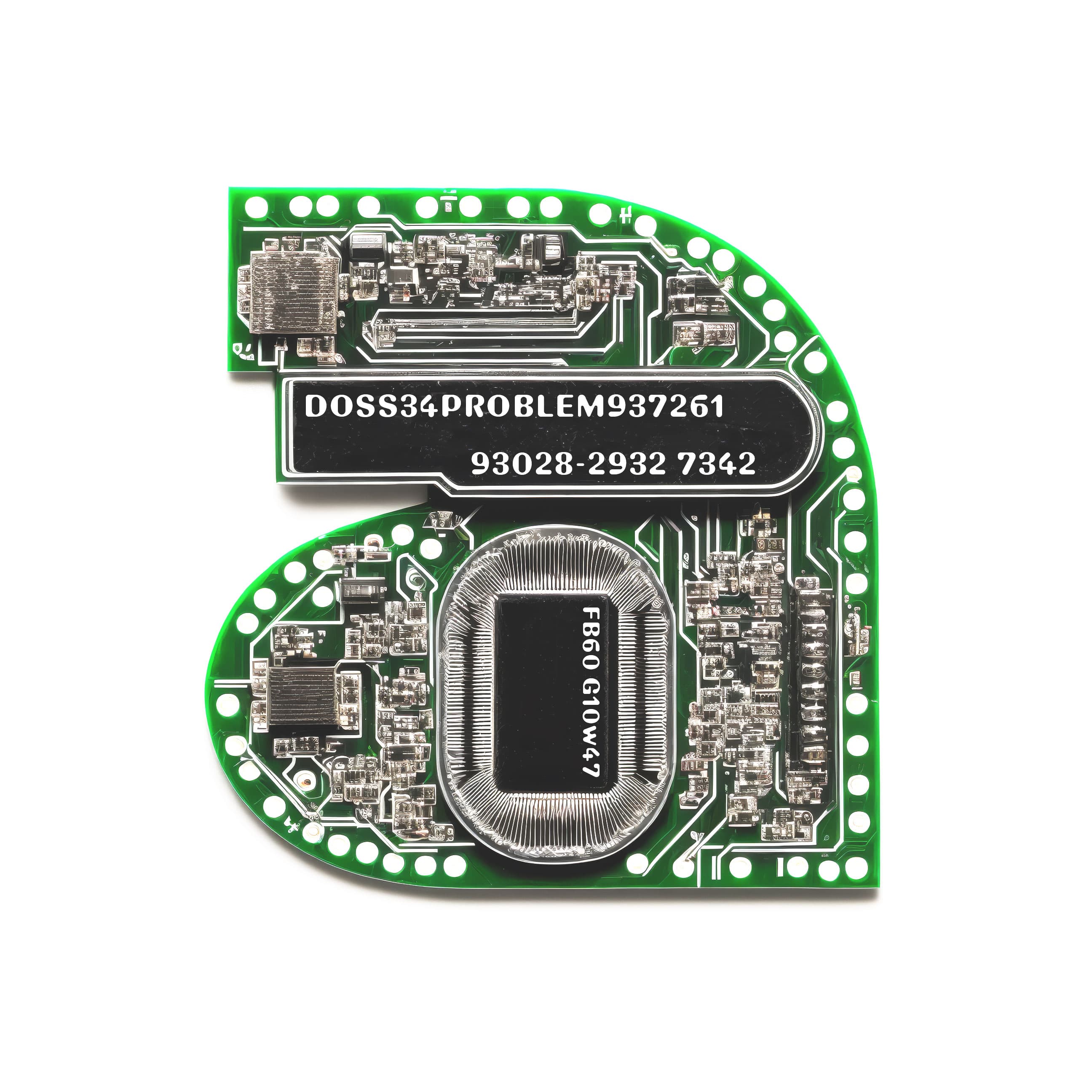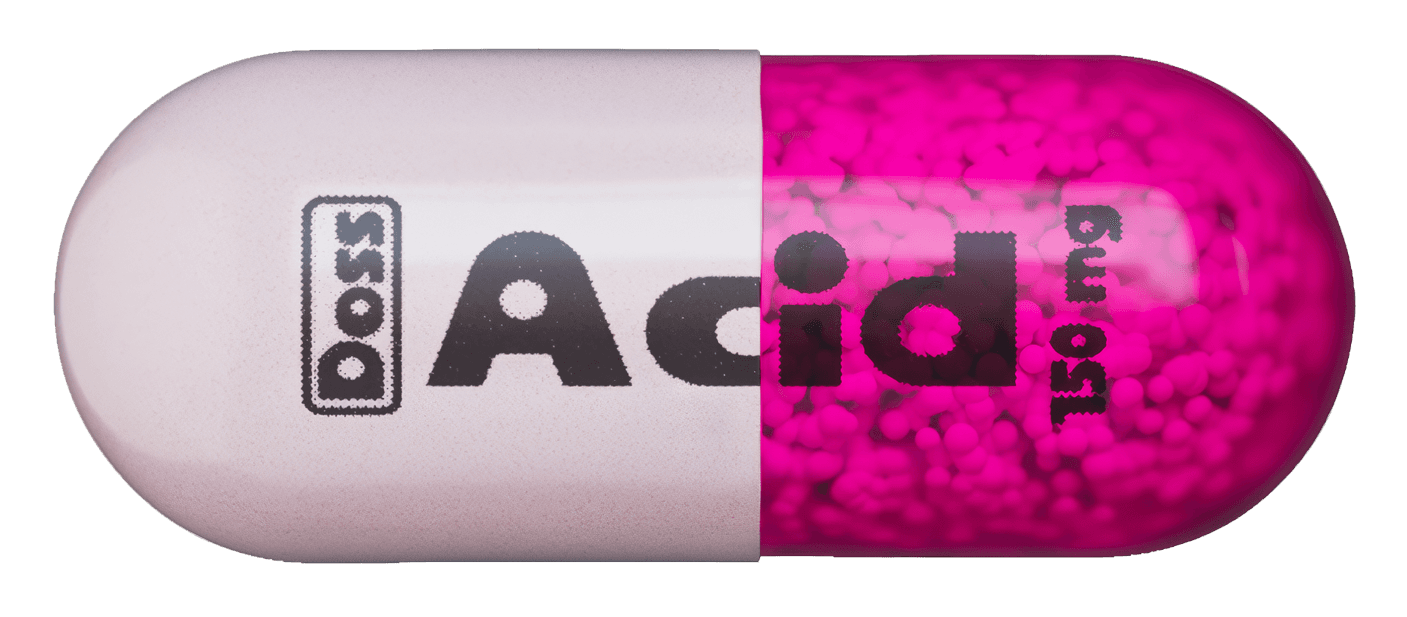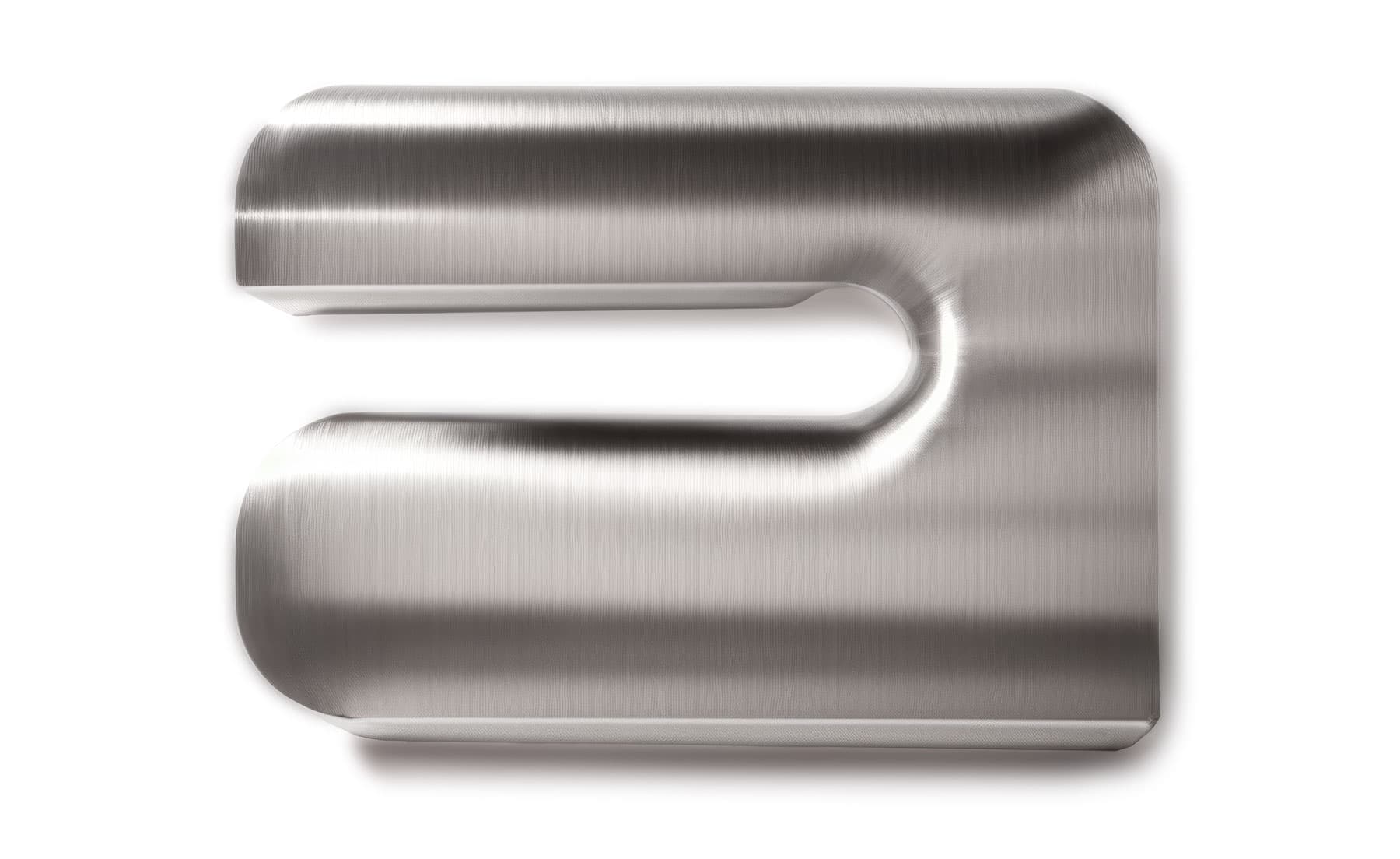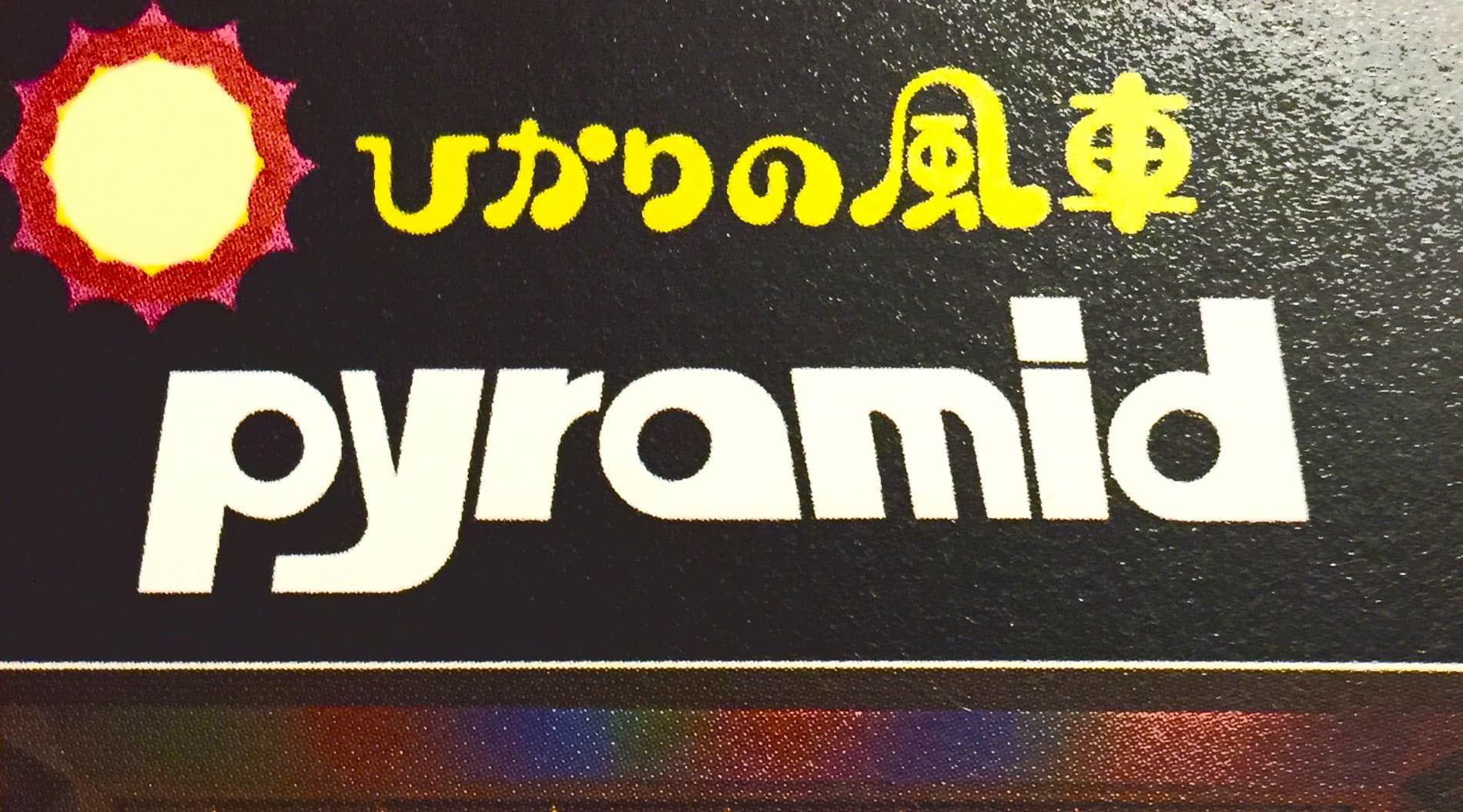
DOSS Collection
Inspired by the logotypes of construction and hi-fi audio brands, DOSS is a collection of four display-oriented typefaces that also reference the aesthetics of ‘90s rave culture and ‘80s sci-fi tropes. The quartet was designed by Marc Rouault over a period of five years, forming a loose confederacy of fonts that reveals his fascination with vernacular typography—in this case, the aesthetics of electronics and their branding.
Available all together or as individual styles, the DOSS collection includes Exaflop, Acid, Plexus, and Problem. While each has its own unique flavor, the styles within the Doss collection are unified by their exaggerated geometric structures, unexpectedly round counterforms, and unicase character sets. A graphic designer’s type designer, Marc’s output maintains a balance of inventive curiosity and sharp technical prowess. DOSS is no exception, offering a toolbox of riches to the intrepid designer seeking to explore the limits of ultra-display typography.